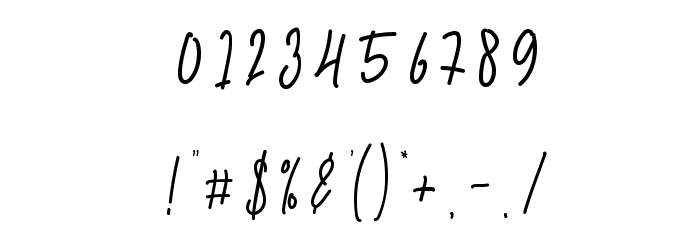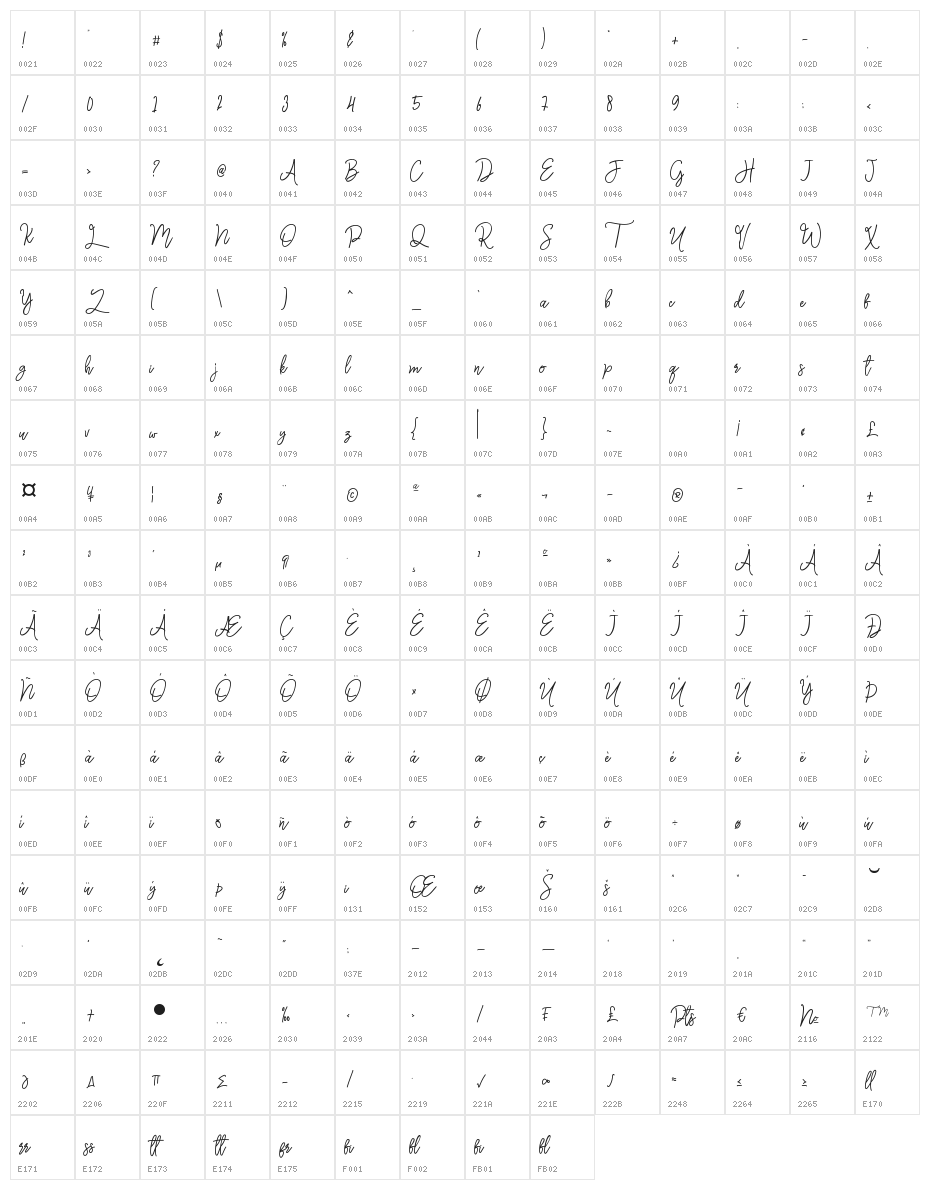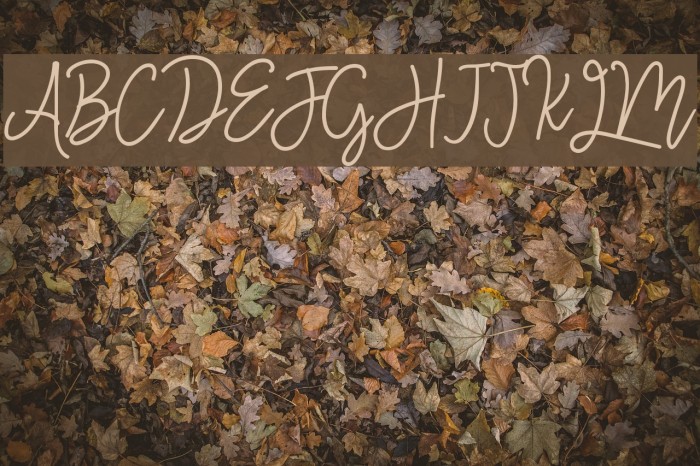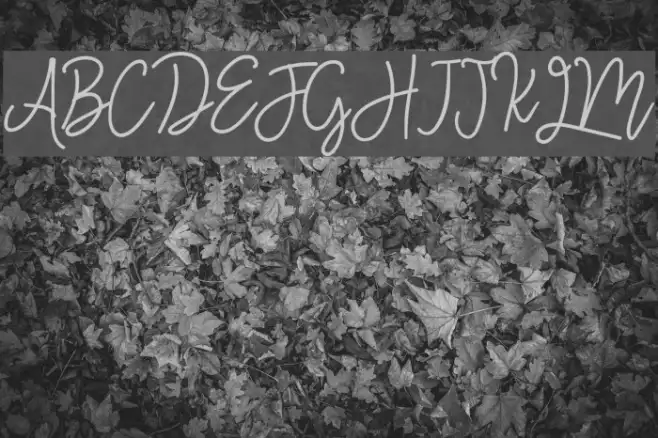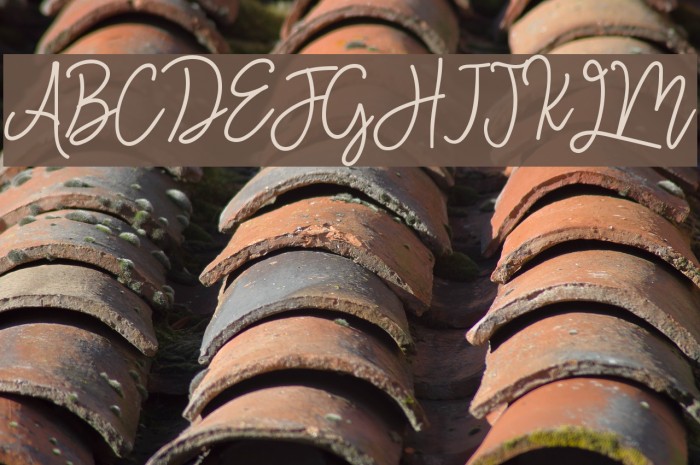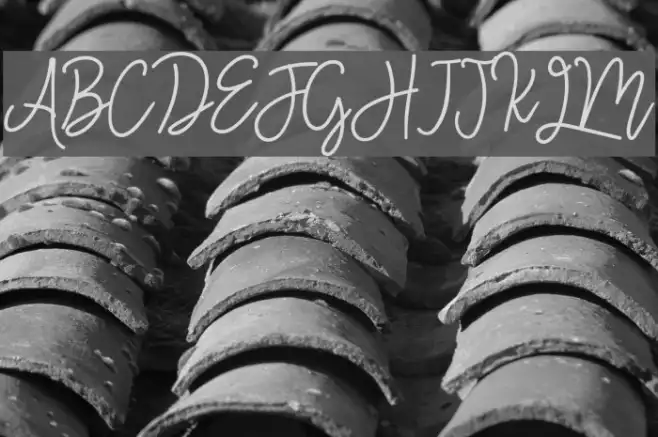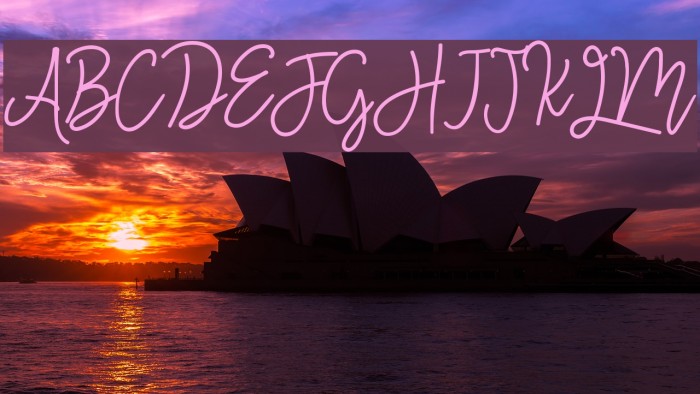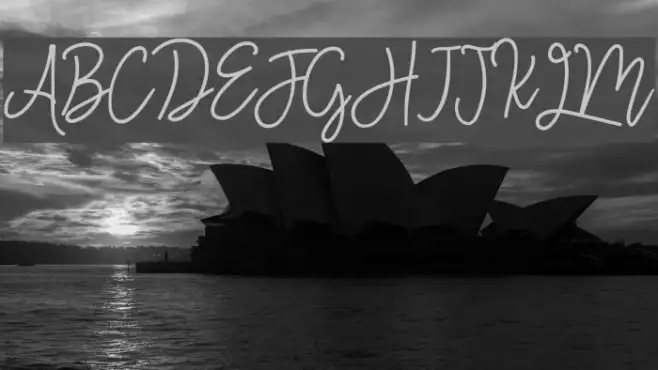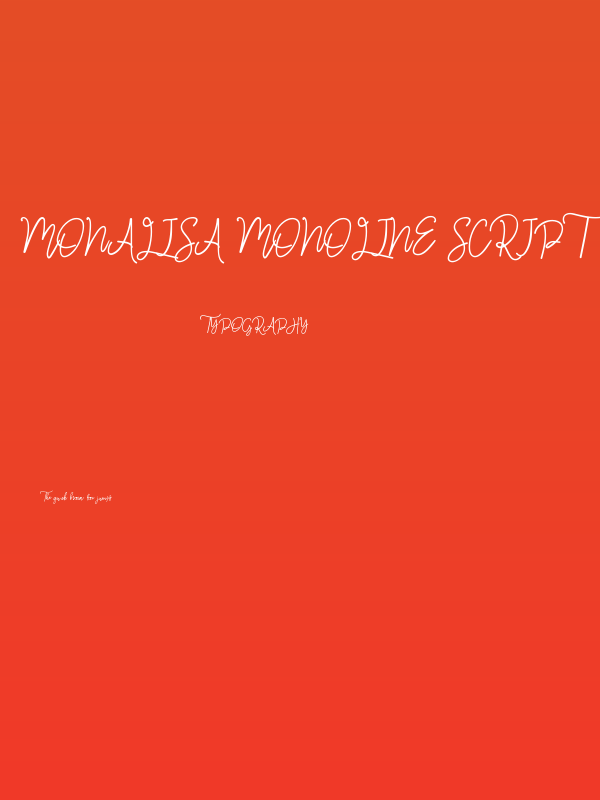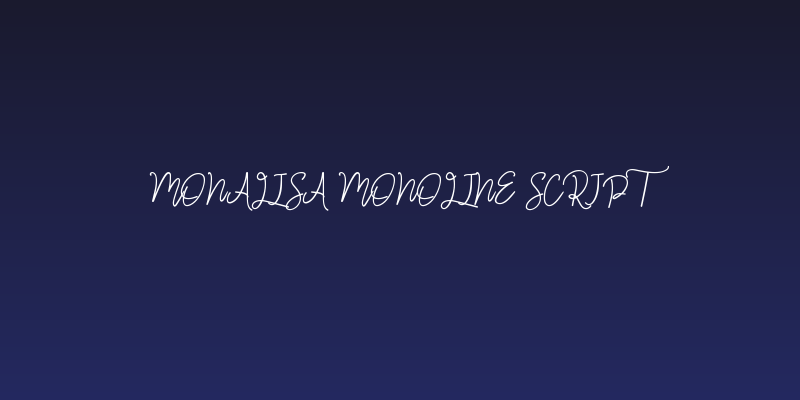
Monalisa Monoline Script Font
Monalisa Monoline Script Description
This elegant script font features a monoline design, characterized by its consistent stroke width throughout each character. The letters are gracefully connected, creating a fluid and harmonious appearance. The uppercase letters exhibit a sophisticated flair with subtle loops and curves, while the lowercase letters maintain a smooth and flowing style. The numerals are distinct and easy to read, complementing the overall aesthetic. Special characters are thoughtfully designed to match the script's elegant nature, making this font versatile for various design needs.